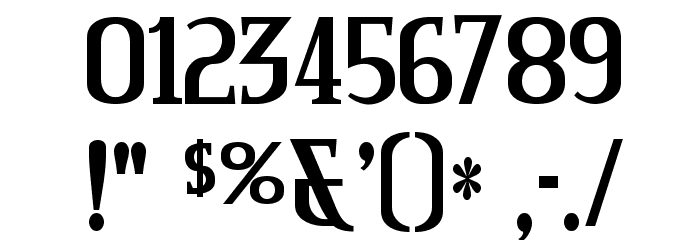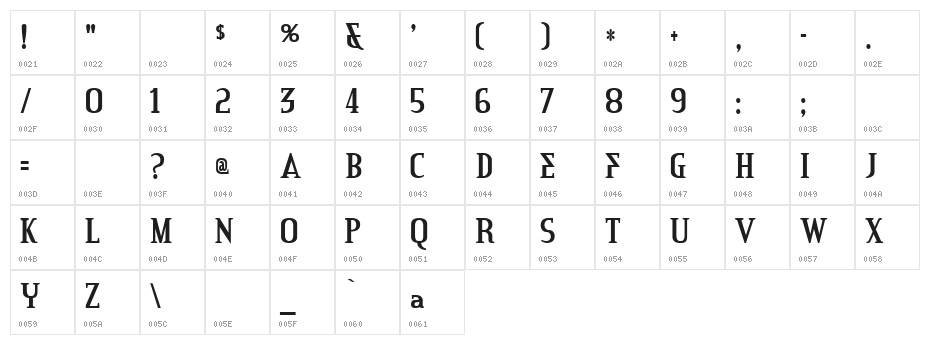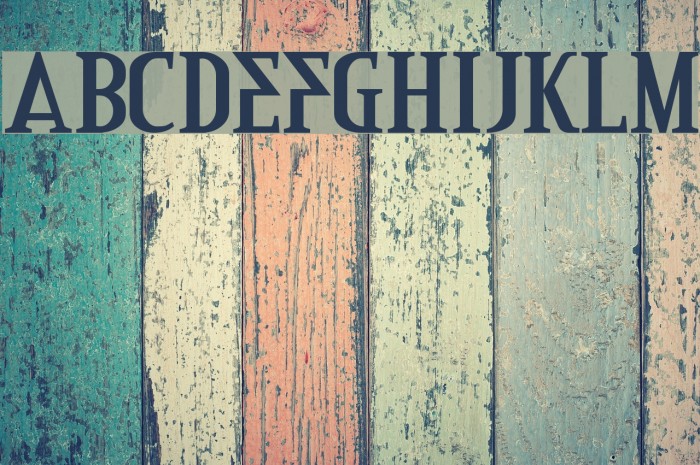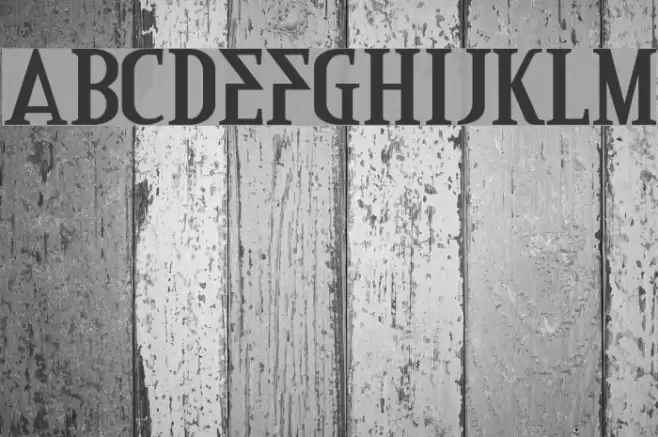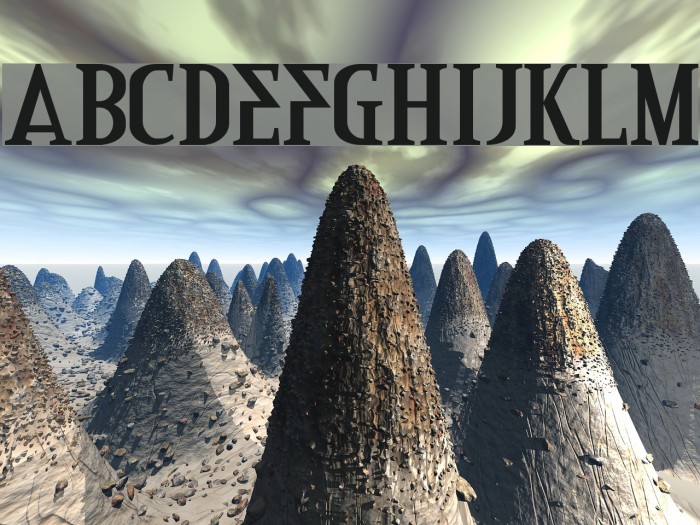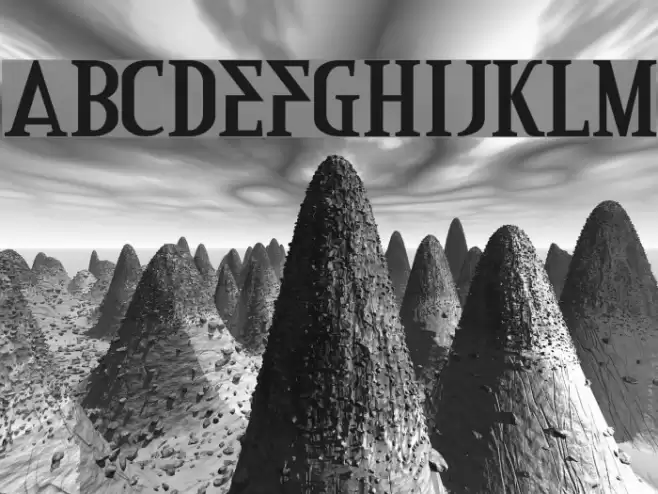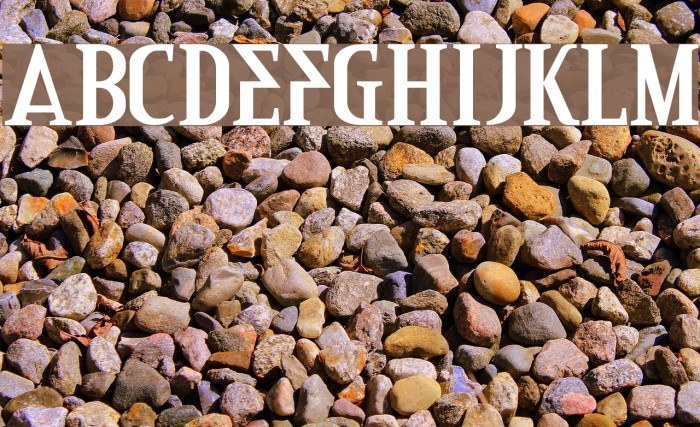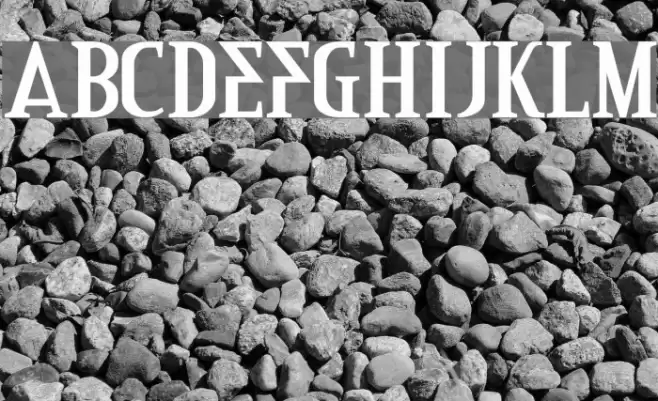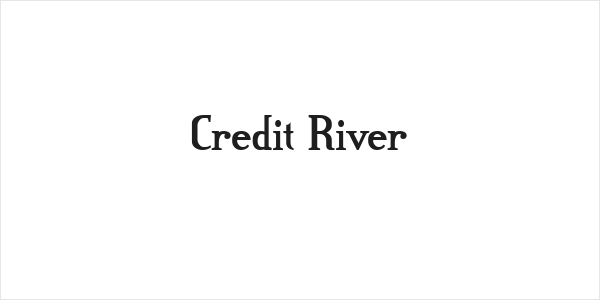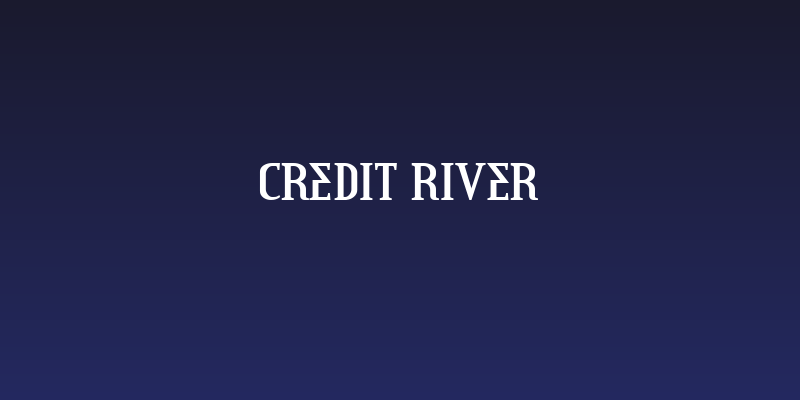
Credit River Font
Credit River Description
This font features a bold and distinctive style with high contrast between thick and thin strokes, giving it a strong and authoritative presence. The serifs are pronounced, adding a touch of elegance and tradition. The uppercase letters are particularly striking, with unique shapes that make them stand out. The lowercase letters maintain a consistent style, ensuring readability while retaining the font's unique character. The numerals are clear and well-defined, making them suitable for various applications. Special characters are included, maintaining the overall aesthetic of the font.
| Use Case | Headlines, Logos, Editorial design |
| Proposed Projects | Ideal for branding, headlines, posters, and editorial design where a strong and elegant presence is desired. |